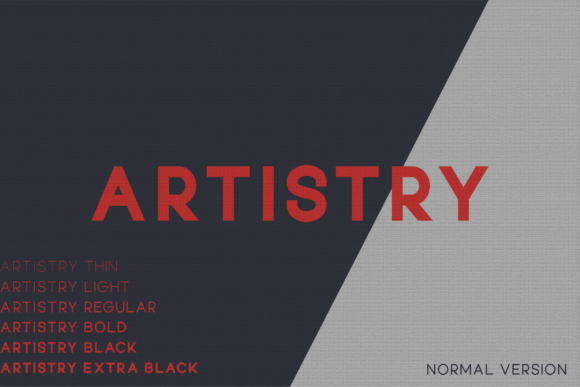
In a world where design reigns supreme, let your creativity soar with the Artistry Font Family, a symphony of elegance and minimalism. This sans serif masterpiece, meticulously crafted by Nan Design, is a testament to the fusion of modernity and luxury. Its six distinct weights dance harmoniously, effortlessly enhancing every project you embark upon.
Unleash the allure of Artistry for your next magazine layout, where words come alive with sophistication. Its clean lines and elegant curves lend an air of refinement to your editorial vision. Let Artistry be the canvas upon which your stories unfold, captivating readers with its timeless charm.
In the realm of branding, Artistry emerges as a beacon of distinction. Its versatility knows no bounds, lending itself seamlessly to logos, packaging, and corporate identities. Its ability to command attention, yet maintain a sense of understated elegance, elevates your brand to new heights.
For the silver screen, Artistry takes center stage, adding an extra layer of magic to your film posters. Its ability to convey a spectrum of emotions, from intrigue to exhilaration, captivates audiences and leaves a lasting impression. Let Artistry be your cinematic muse, igniting the imagination and transporting viewers to realms unknown.